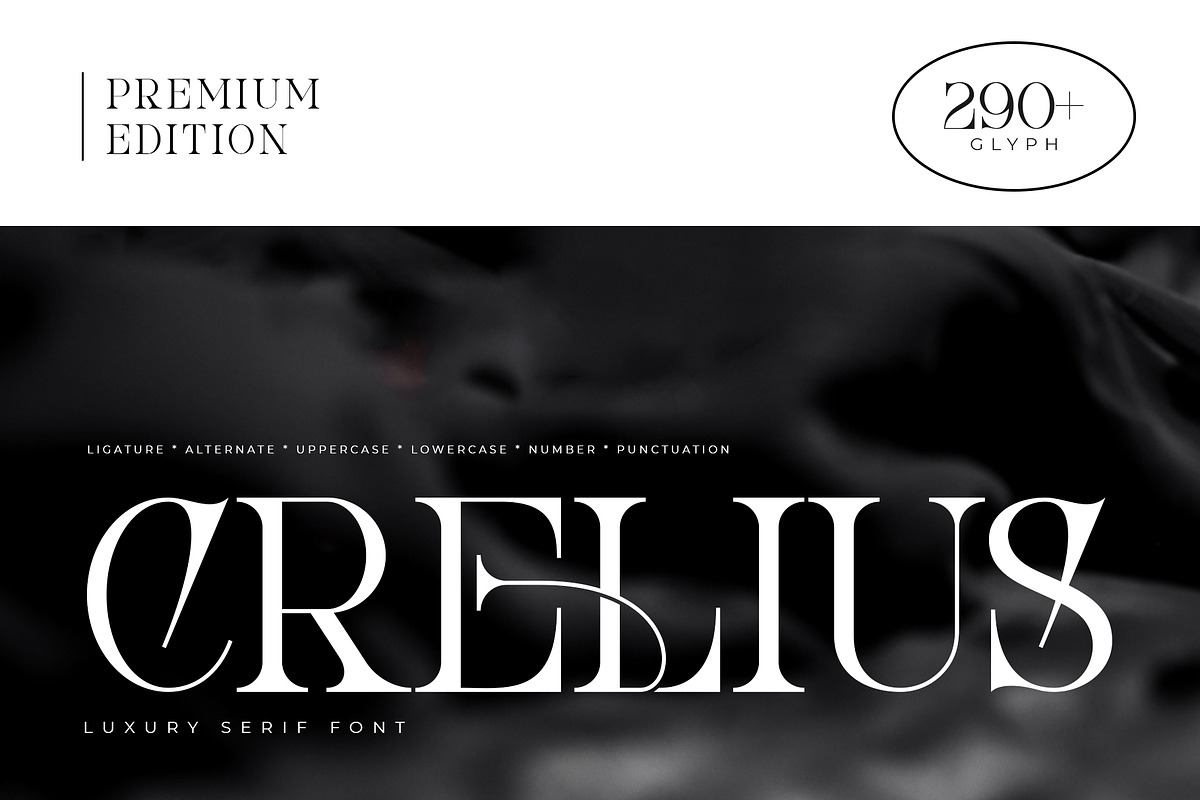
Crelius - Luxury Serif Font Free Download
Crelius - Luxury Serif Font Free Download is an elegant and sophisticated serif typeface designed for high-end branding, luxury products, fashion, and upscale editorial design. With its refined letterforms, sharp serifs, and timeless appeal, Crelius exudes luxury and professionalism.
Ideal for logo design, invitations, product packaging, and premium websites, this font brings a sense of exclusivity and elegance to any project. Its balance of modern style and classic sophistication makes it a versatile choice for both digital and print applications.